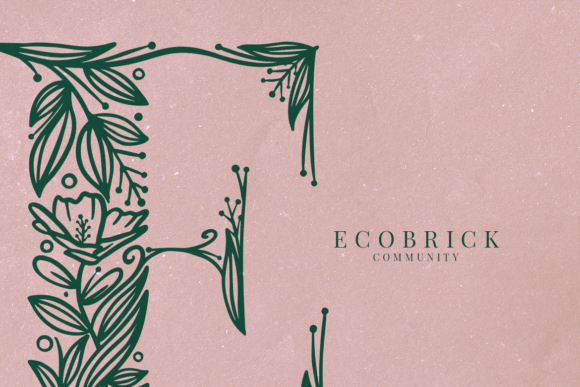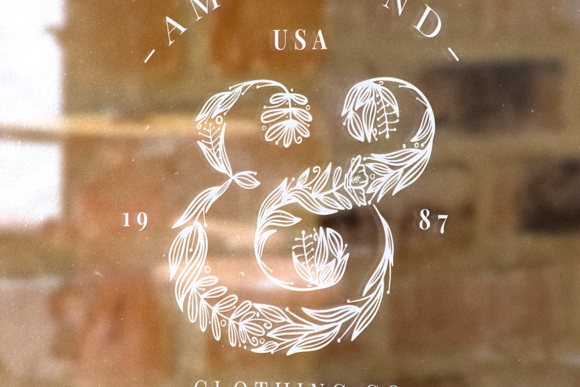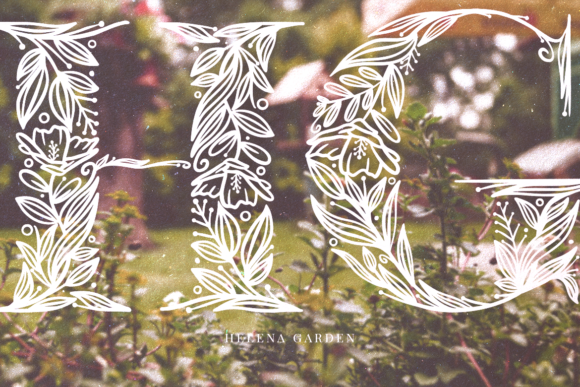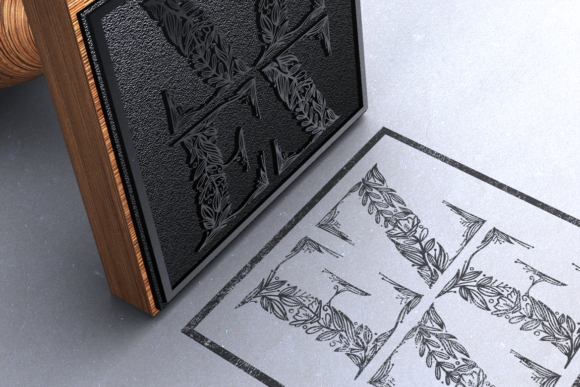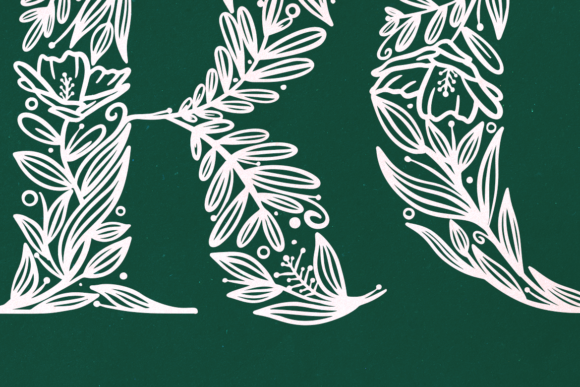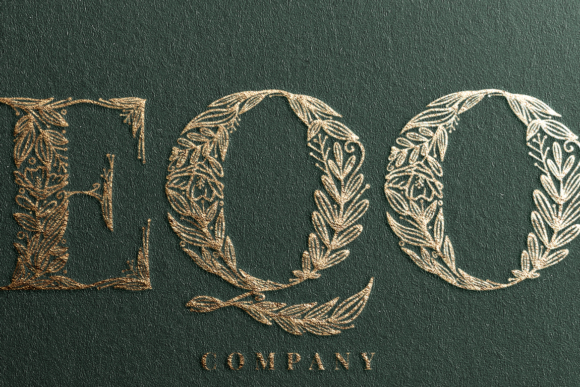
Discover the Unique Charm of Eqo Font: Elevate Your Designs with Authentic Flair
In the world of typography, few fonts manage to capture the essence of uniqueness and authenticity as effectively as Eqo Font. This incredibly decorative font has been making waves among designers and crafters alike, and for good reason. With its distinctive charm and versatile appeal, Eqo Font is the perfect choice for those looking to add a touch of elegance and personality to their projects. Whether you’re creating wedding invitations, stationery art, social media posts, or greeting cards, Eqo Font is sure to leave a lasting impression.
The Authentic Feel of Eqo Font
One of the standout features of Eqo Font is its authentic feel. This font exudes a sense of warmth and character that is hard to find in more traditional typefaces. Its unique design elements and carefully crafted letterforms give it a personal touch that resonates with audiences. When you use Eqo Font, you’re not just selecting a font; you’re embracing a style that feels hand-crafted and genuine.
Perfect for Wedding Invitations and Stationery
Wedding planners and stationery designers, rejoice! Eqo Font is an excellent choice for creating beautiful and memorable wedding invitations and stationery. Its elegant and sophisticated appearance makes it ideal for formal events, while its unique flair ensures that your designs stand out from the crowd. Imagine setting the tone for a fairytale wedding with Eqo Font adorned invitations that reflect the couple’s personality and style.
Eye-Catching Social Media Posts
In the digital age, social media is a crucial platform for designers and businesses to showcase their work and connect with their audience. Eqo Font can help you create eye-catching social media posts that grab attention and inspire engagement. Its decorative and artistic nature makes it perfect for crafting visually appealing graphics, quotes, and announcements that resonate with your followers.
Cute Greeting Cards and More
Eqo Font’s versatility doesn’t stop at wedding invitations and social media posts. It’s also an excellent choice for creating cute and personalized greeting cards for various occasions. Whether it’s a birthday, anniversary, or holiday, Eqo Font adds a touch of whimsy and charm to your card designs. Additionally, you can use it for crafting beautiful journal entries, planners, and other paper crafts that showcase your creativity.
Why Designers and Crafters Love Eqo Font
So, what makes Eqo Font a favorite among designers and crafters? Here are a few reasons:
• Unique Style: Eqo Font offers a distinctive style that sets it apart from more common fonts.
• Versatility: It can be used for a wide range of projects, from formal to casual.
• Authentic Feel: Its hand-crafted feel gives it a personal touch that audiences love.
• Ease of Use: Despite its decorative nature, Eqo Font is easy to read and works well in various contexts.
Tips for Using Eqo Font Effectively
To make the most of Eqo Font, consider the following tips:
• Pair it with Neutrals: Balance Eqo Font’s decorative nature by pairing it with neutral fonts for body text.
• Experiment with Colors: Play around with different colors to find the perfect match for your design.
• Use it Sparingly: While Eqo Font is beautiful, using it sparingly can make it more impactful.
• Mix and Match: Don’t be afraid to combine Eqo Font with other decorative elements to create a unique look.
Eqo Font is more than just a decorative font; it’s a tool for creativity and self-expression. Its unique charm, authentic feel, and versatility make it an excellent choice for designers and crafters looking to elevate their projects. Whether you’re creating wedding invitations, social media posts, or greeting cards, Eqo Font is sure to inspire and impress. So, fall in love with Eqo Font and discover a world of limitless design possibilities.